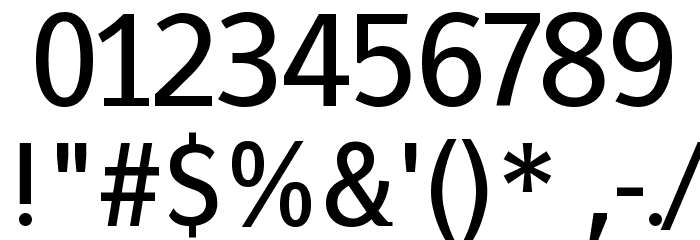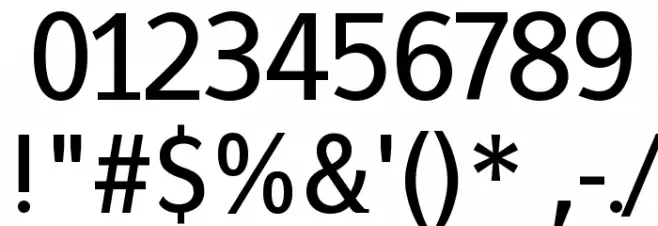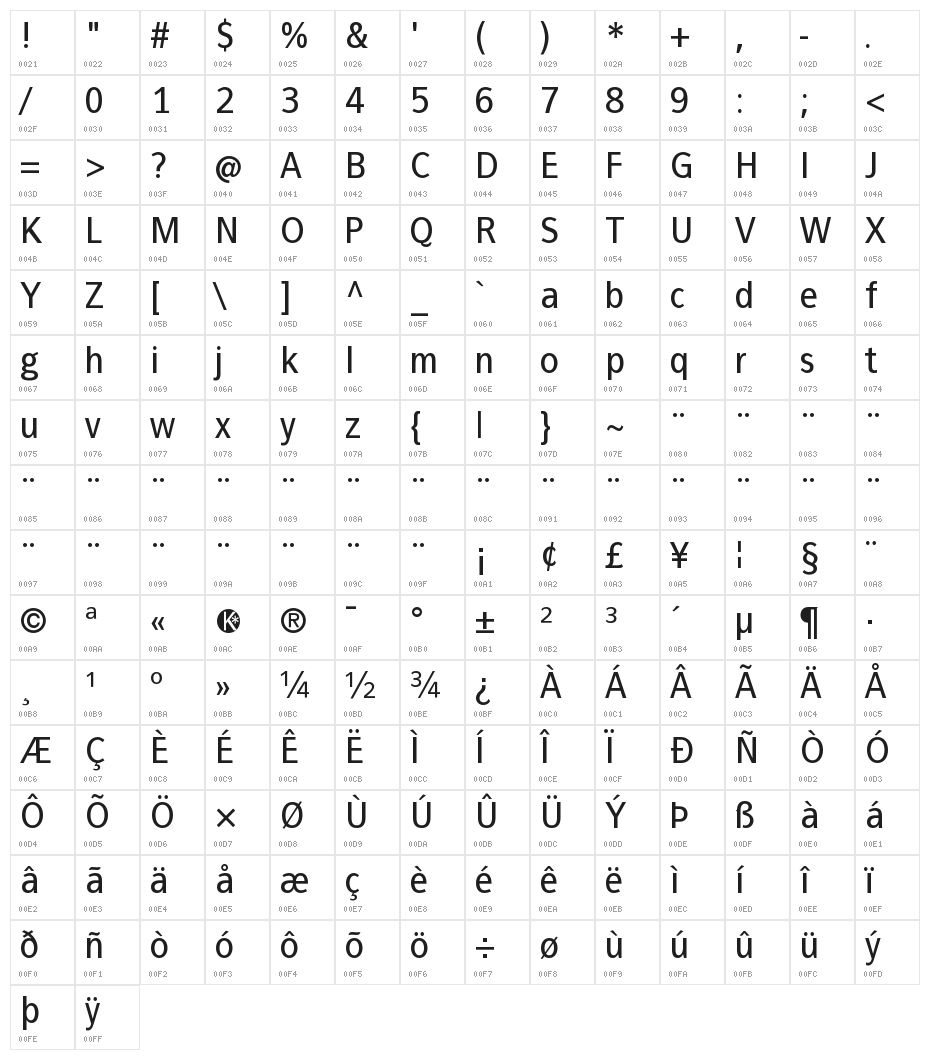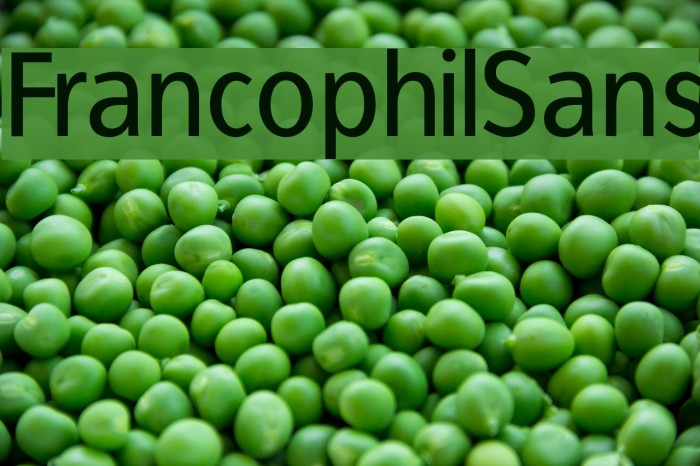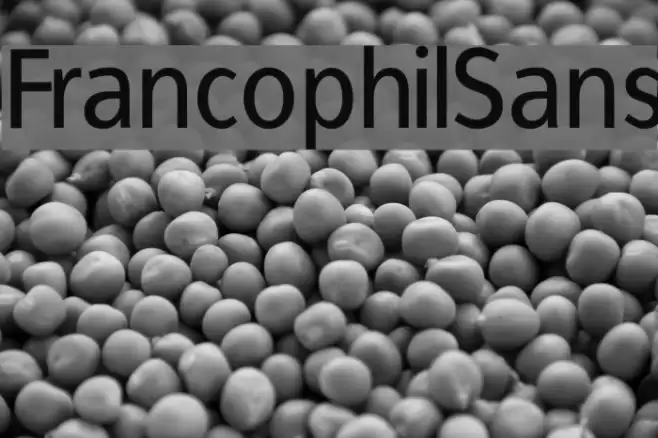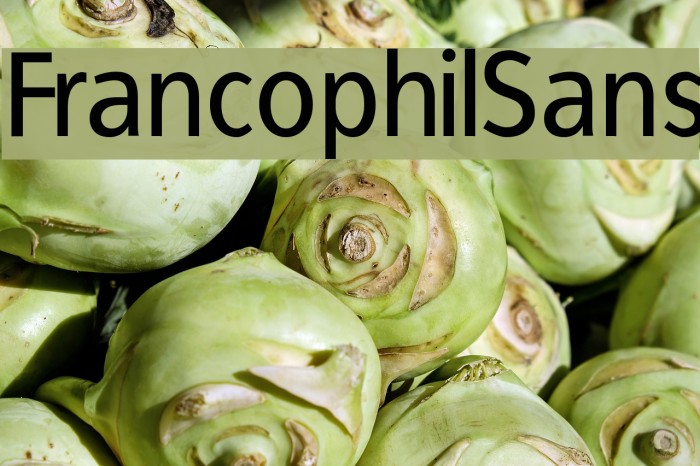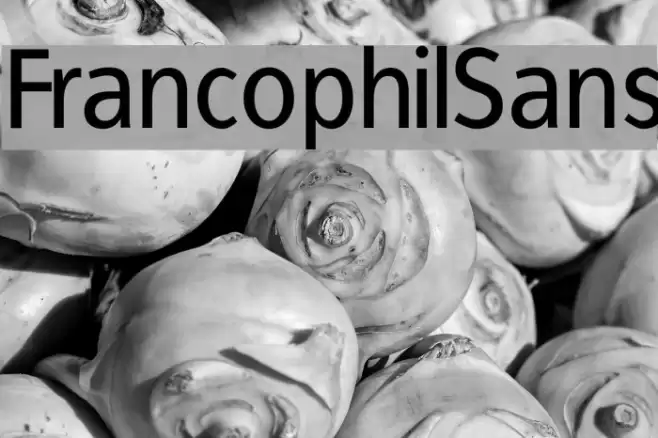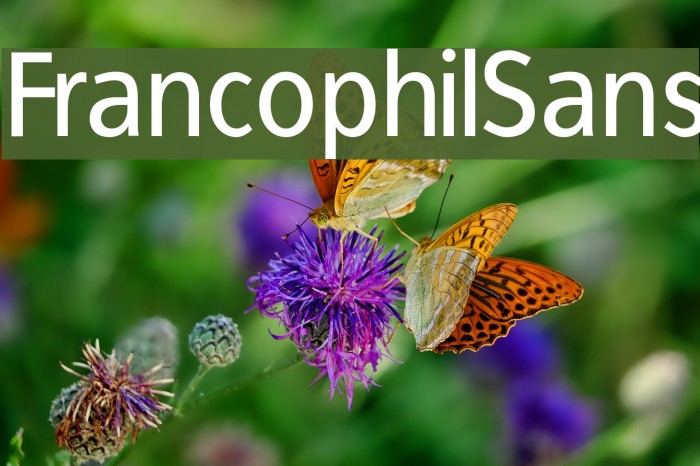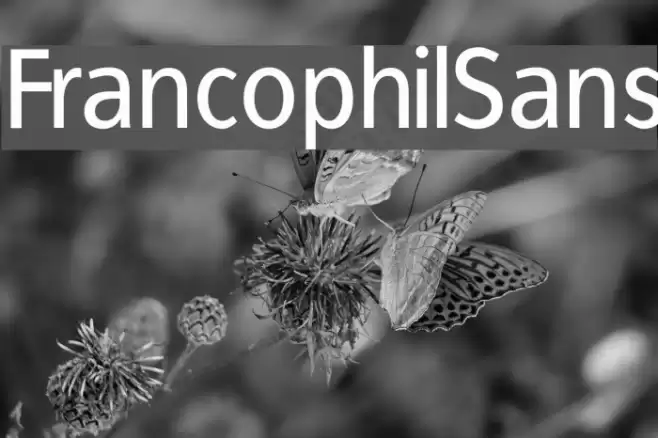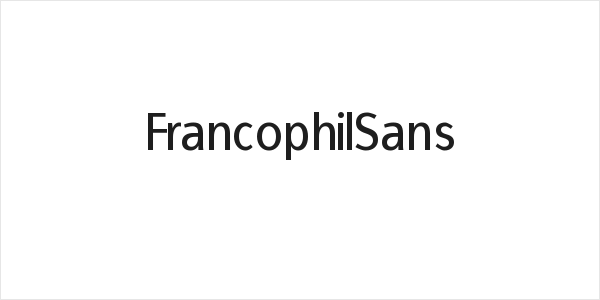
FrancophilSans Font
FrancophilSans Description
This font presents a clean and modern sans-serif style with a straightforward and highly legible appearance. The characters are well-proportioned, featuring a consistent stroke width that contributes to its readability. The uppercase letters are bold and assertive, while the lowercase letters maintain a friendly and approachable demeanor. The numerals are clear and distinct, making them suitable for various applications. Special characters are included, offering versatility for different contexts. The overall design is minimalistic, focusing on functionality and clarity, making it ideal for both digital and print media.
| Proposed Projects | Ideal for branding, web design, advertising, and editorial projects where clarity and modernity are essential. |